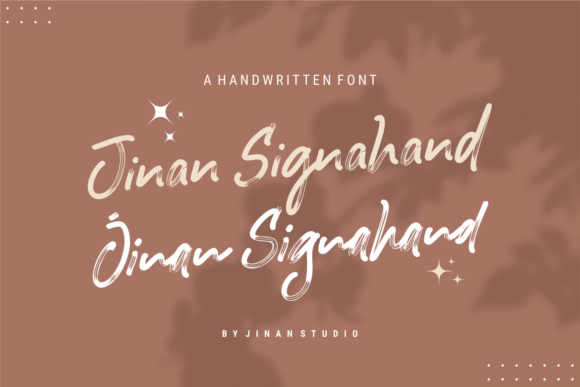
Unleash the Beauty of Expression with Jinan Signahand: A Script Font That Captivates
In the world of digital design, fonts hold the power to transform ordinary words into captivating expressions. Among the myriad of typefaces, the Jinan Signahand font emerges as a true masterpiece, a script font imbued with elegance, charm, and boundless creativity.
Crafted by the skilled hands of jinanstd, Jinan Signahand is a symphony of graceful curves and flowing lines, reminiscent of a gentle breeze whispering through the leaves. Its meticulously crafted characters exude a timeless appeal, reminiscent of handwritten letters penned with love and care.
With Jinan Signahand as your creative companion, you'll embark on a journey of design possibilities, effortlessly crafting stunning creations that resonate with emotion and allure. Whether you're designing heartfelt greeting cards, eye-catching headlines, or any project that demands a touch of sophistication, this font will add a spark of magic.
The versatility of Jinan Signahand knows no bounds. Its charming personality seamlessly complements a myriad of design styles, from classic and vintage to contemporary and modern. Let your imagination run wild as you explore the endless possibilities, transforming your designs into works of art that leave a lasting impression.
But what truly sets Jinan Signahand apart is its remarkable ease of use. Encoded with PUA (Private Use Area) technology, accessing the font's extensive glyphs and swashes is a breeze. With just a few clicks, you can unleash a world of embellishments, flourishes, and alternate characters, adding extra layers of depth and intrigue to your designs.